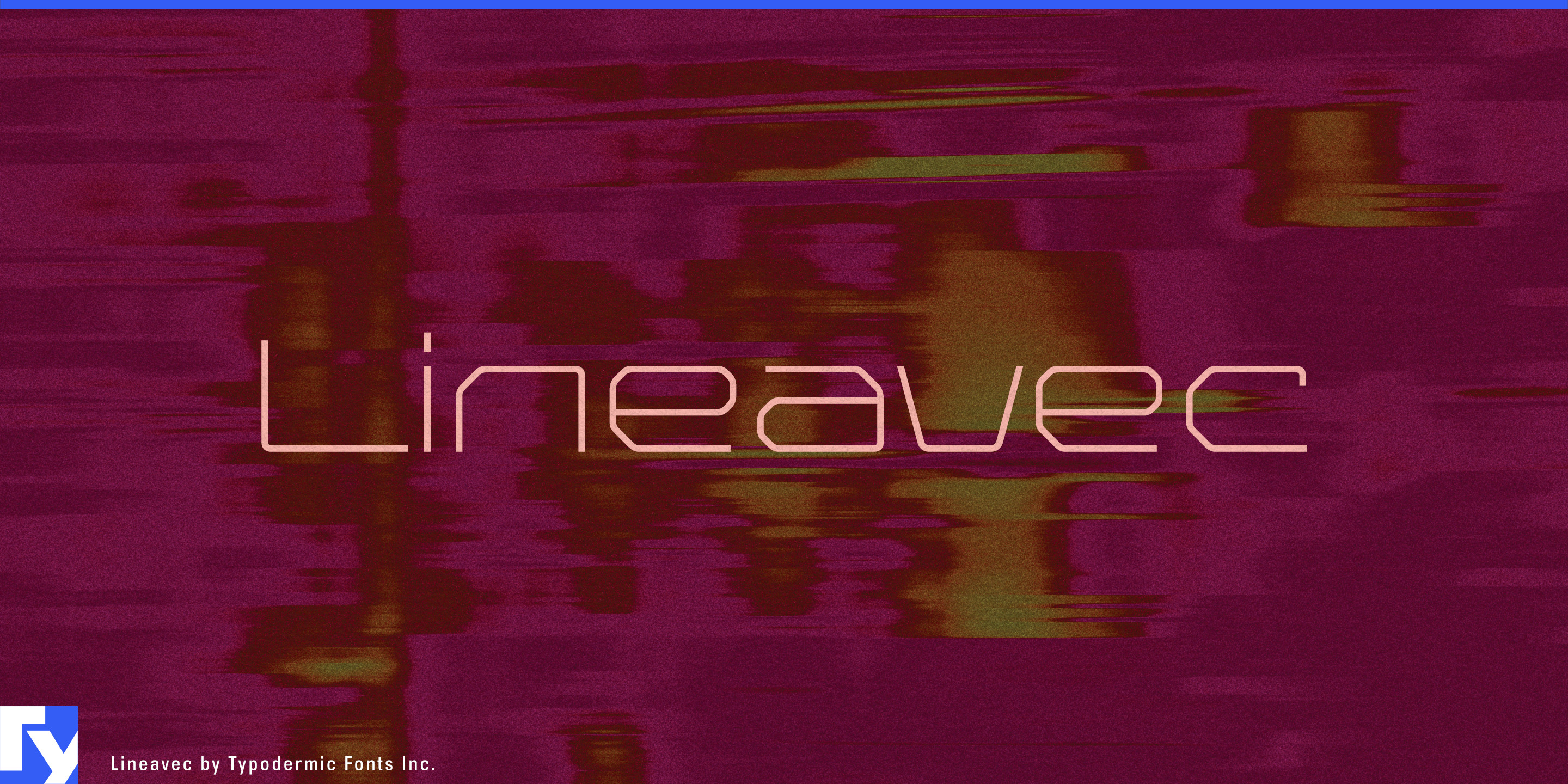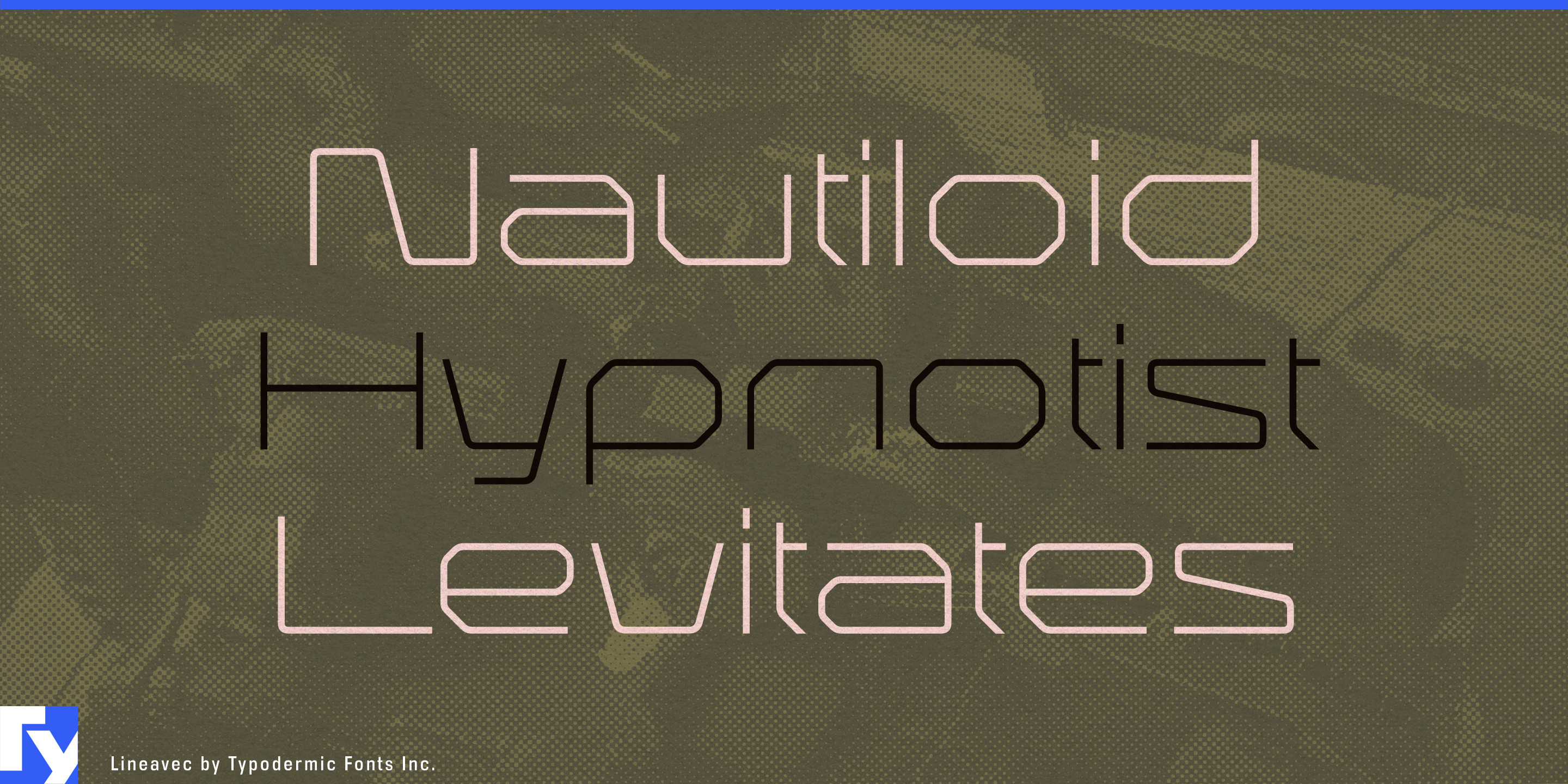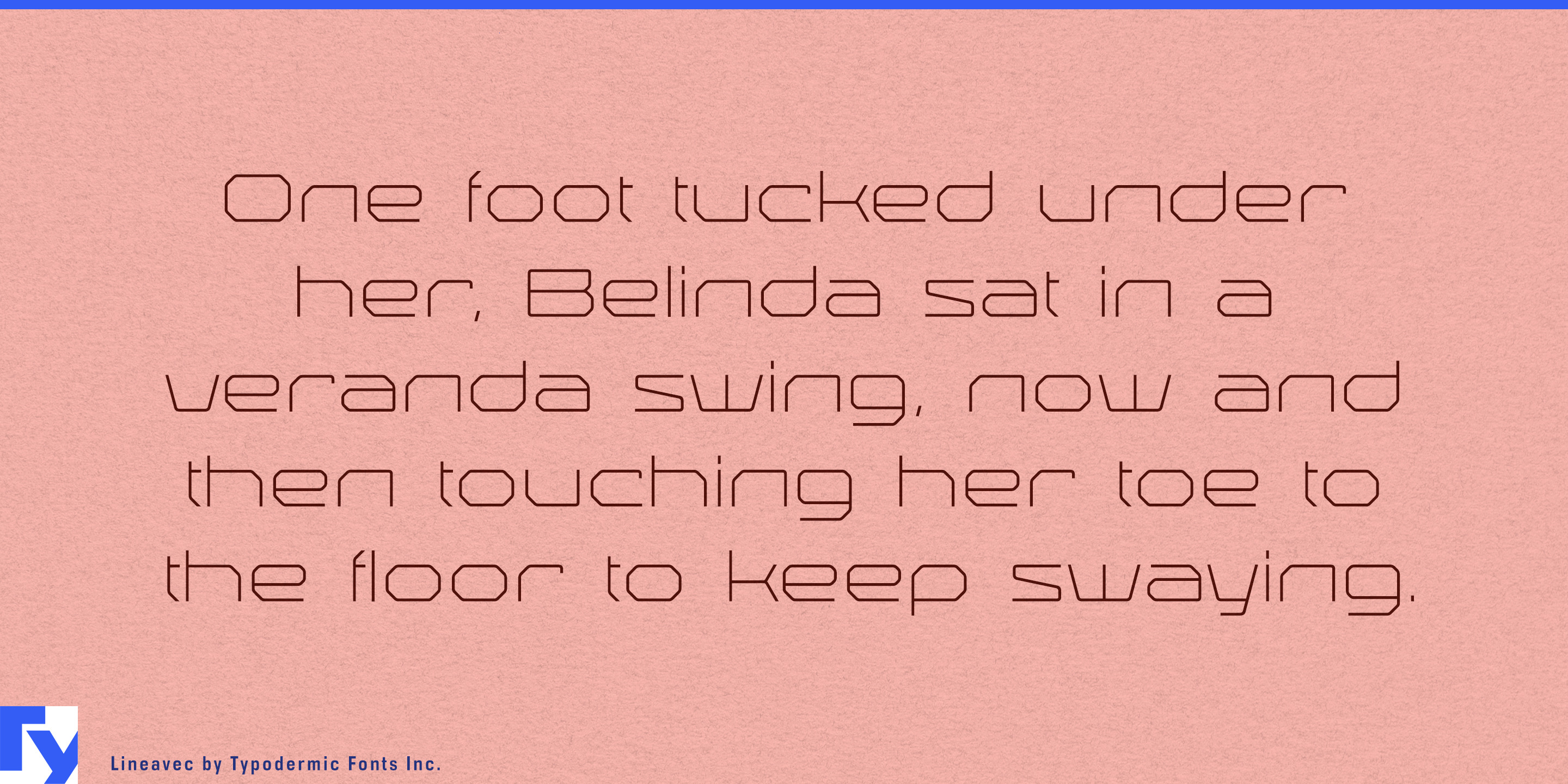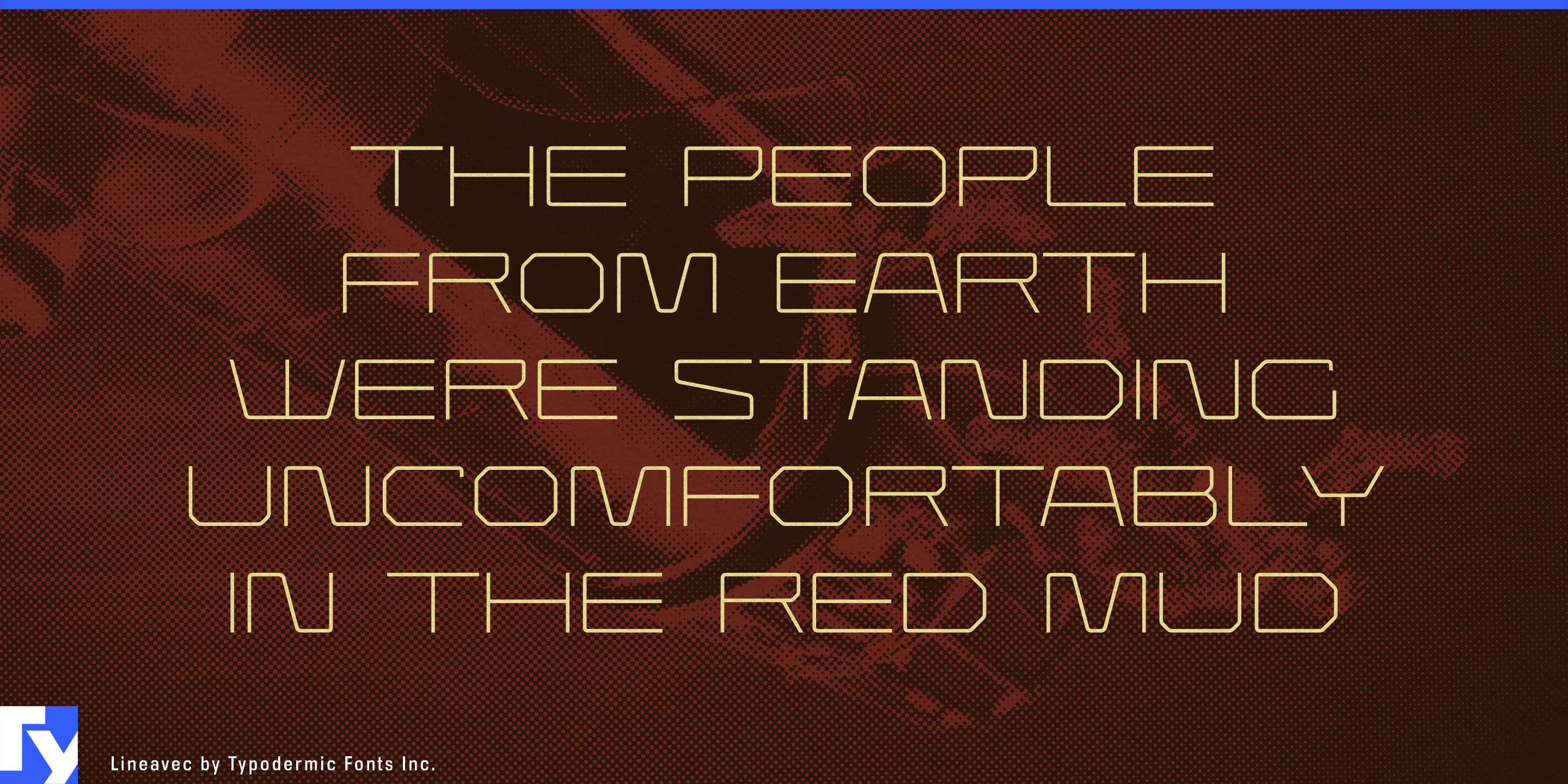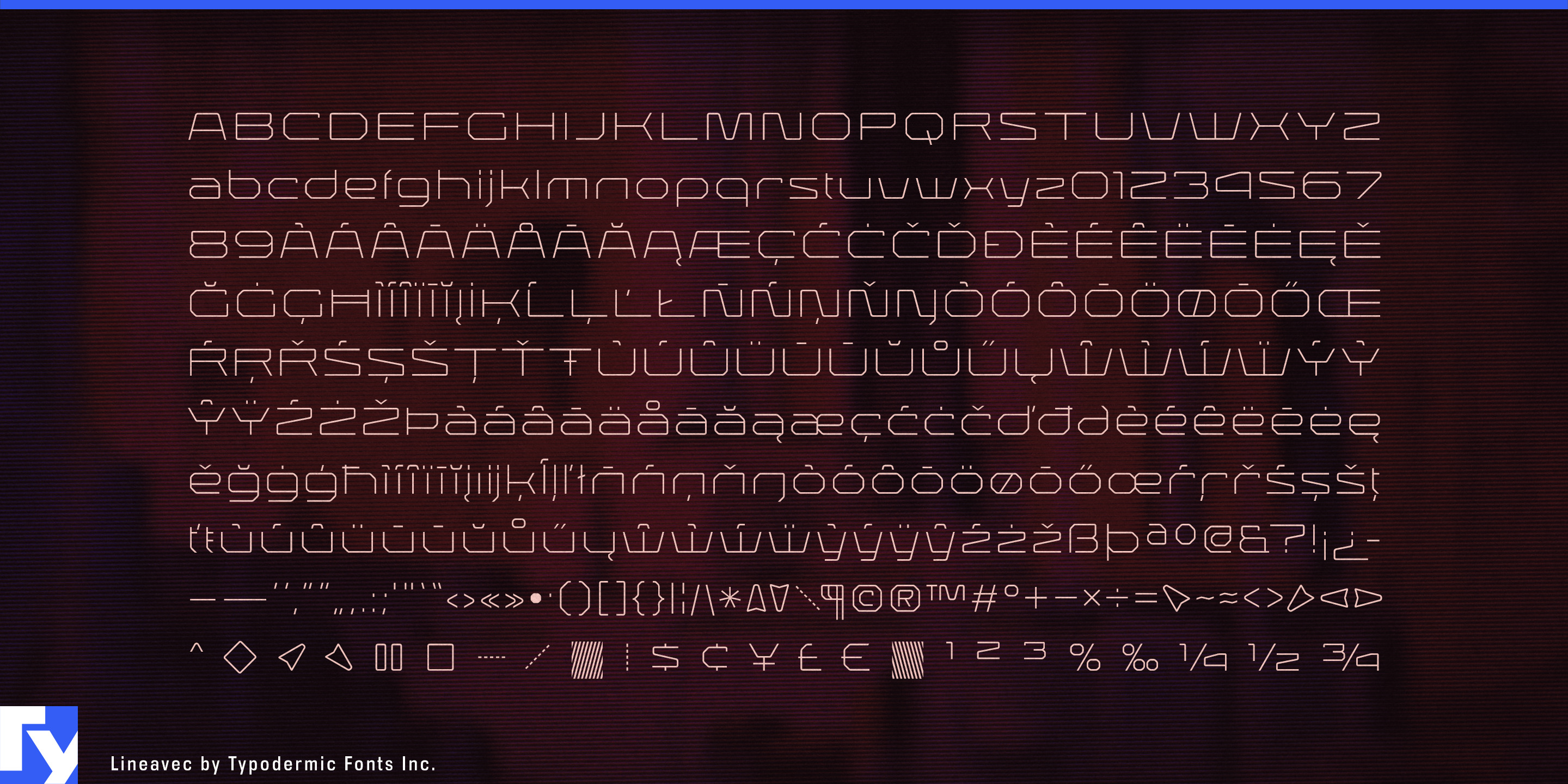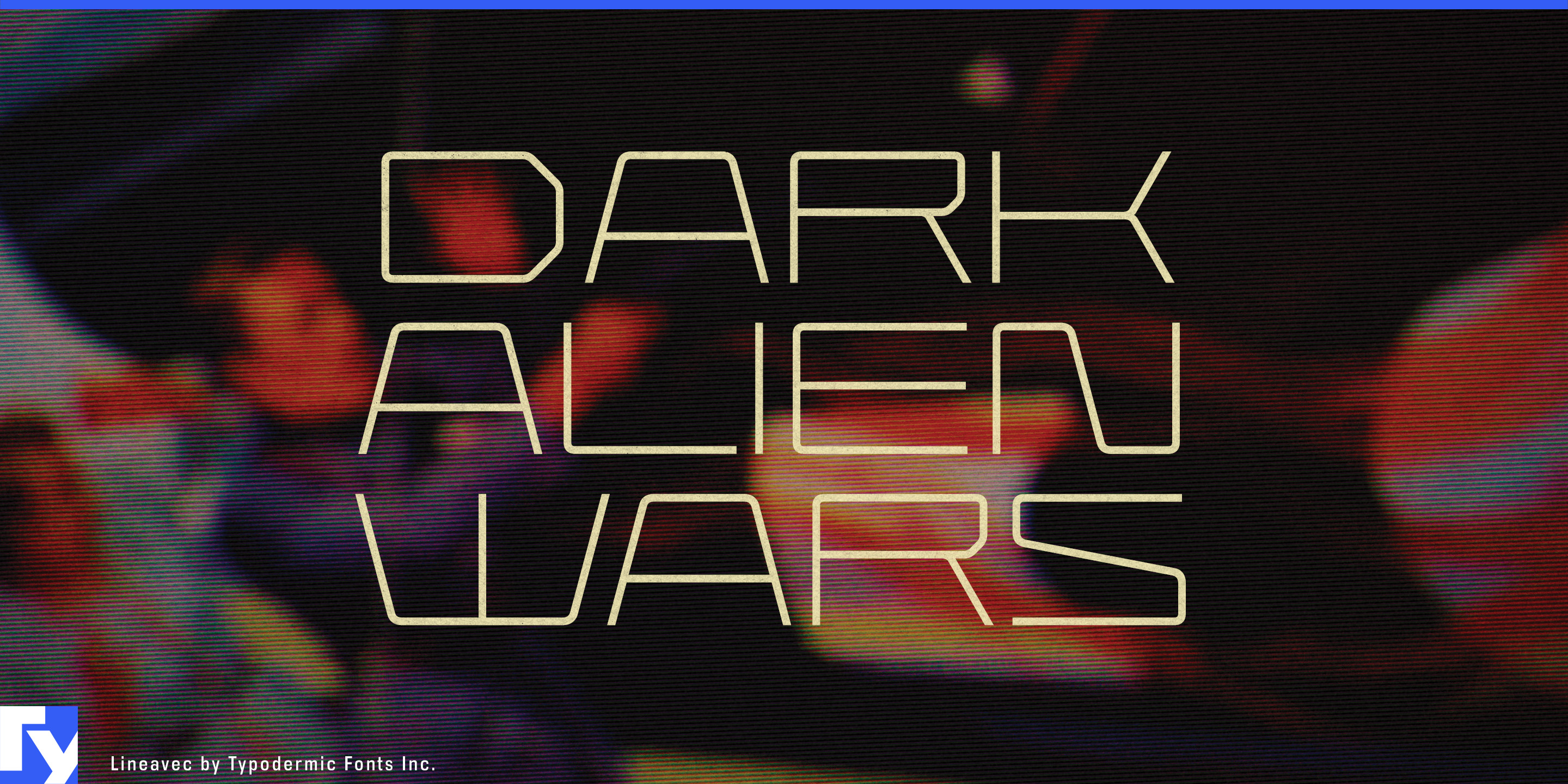
Lineavec
Thin futuristic lettering can easily become decorative. Lineavec has a more specific logic: its broad monoline forms behave like paths. Strokes turn corners, cross wide spans and connect through the alphabet like routed signals rather than filled shapes.
That makes photonics an unusually natural fit. Silicon-photonics systems, optical interconnects, photonic processors and high-speed transceivers can use Lineavec for product-family names, chip-series identities, conference graphics and trade-show displays, where the thin strokes can suggest waveguides without becoming literal circuit diagrams.
LiDAR and reality capture extend the same idea into measurement. Terrestrial laser scanners, surveying systems, point-cloud platforms and digital-twin services can use Lineavec for scanner model names, campaign titles and large exhibition graphics, letting the letterforms share the visual language of scan lines, plotted paths and measured geometry.
The construction becomes especially effective when the typography itself is rendered as light. Edge-lit acrylic, laser-engraved panels, etched glass and illuminated environmental graphics can turn Lineavec’s strokes into glowing routes. Photonics-company lobbies, science-museum installations, architectural-lighting showrooms and technology exhibitions all give the design enough scale for its delicate structure to remain visible.
Laser projection, optical installations and light-art systems offer a related territory, while developer-board graphics and large schematic-inspired displays can preserve the circuit-trace ancestry at display scale.
Lineavec works best where its thin paths have room to breathe: product names, conference titles, installation graphics and large environmental lettering rather than small operational text. Inspired by lasers, vector graphics and circuit traces, it has found a contemporary home in systems where information really does travel along lines of light.